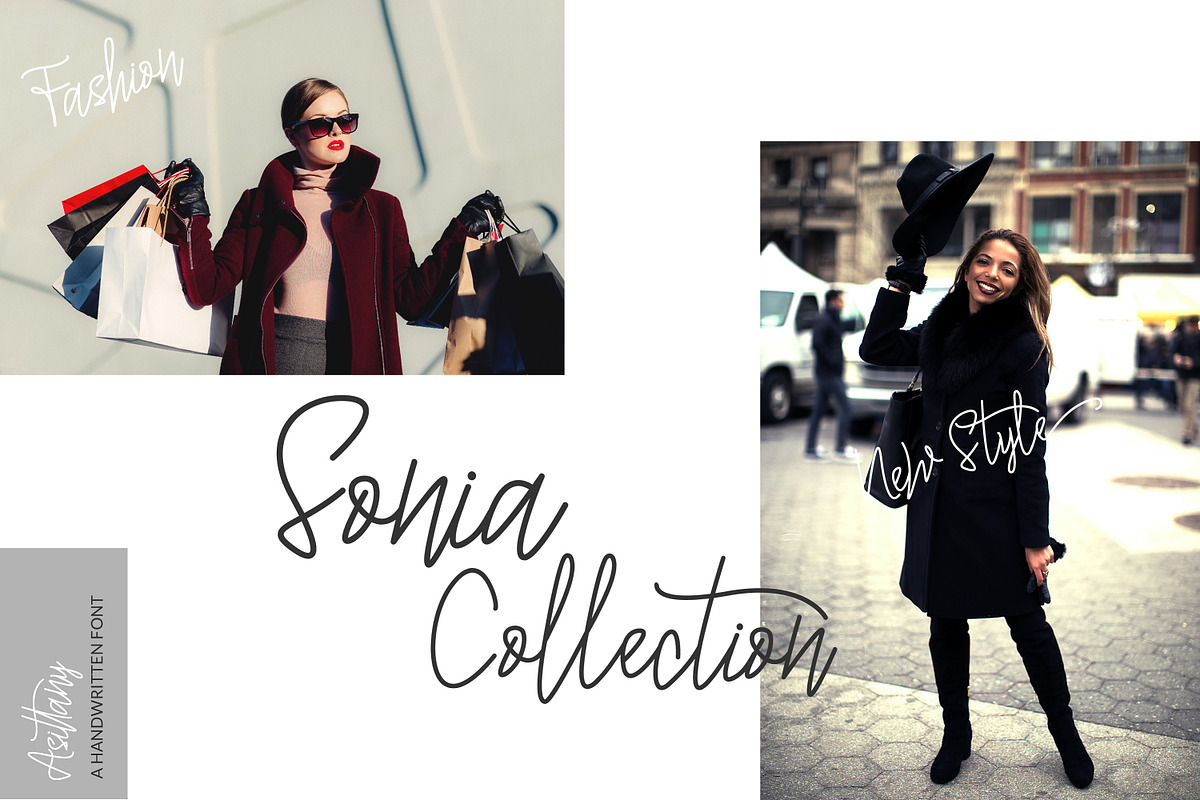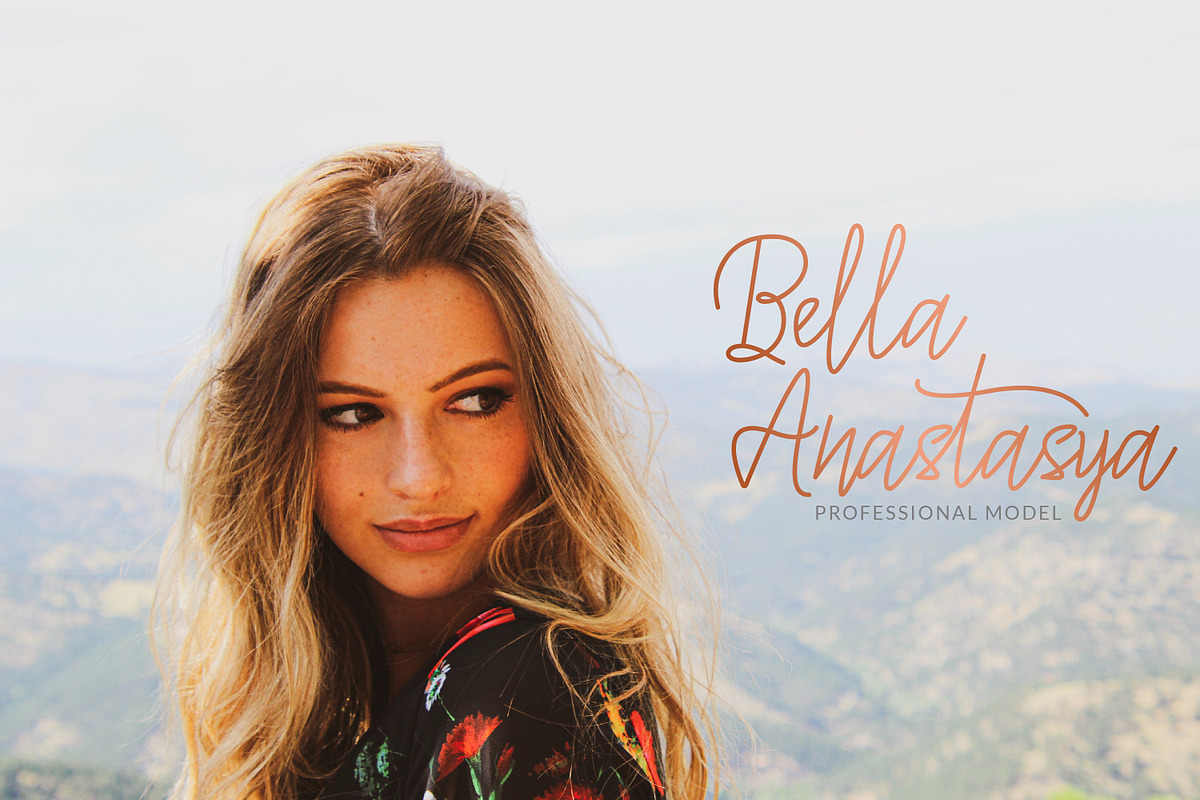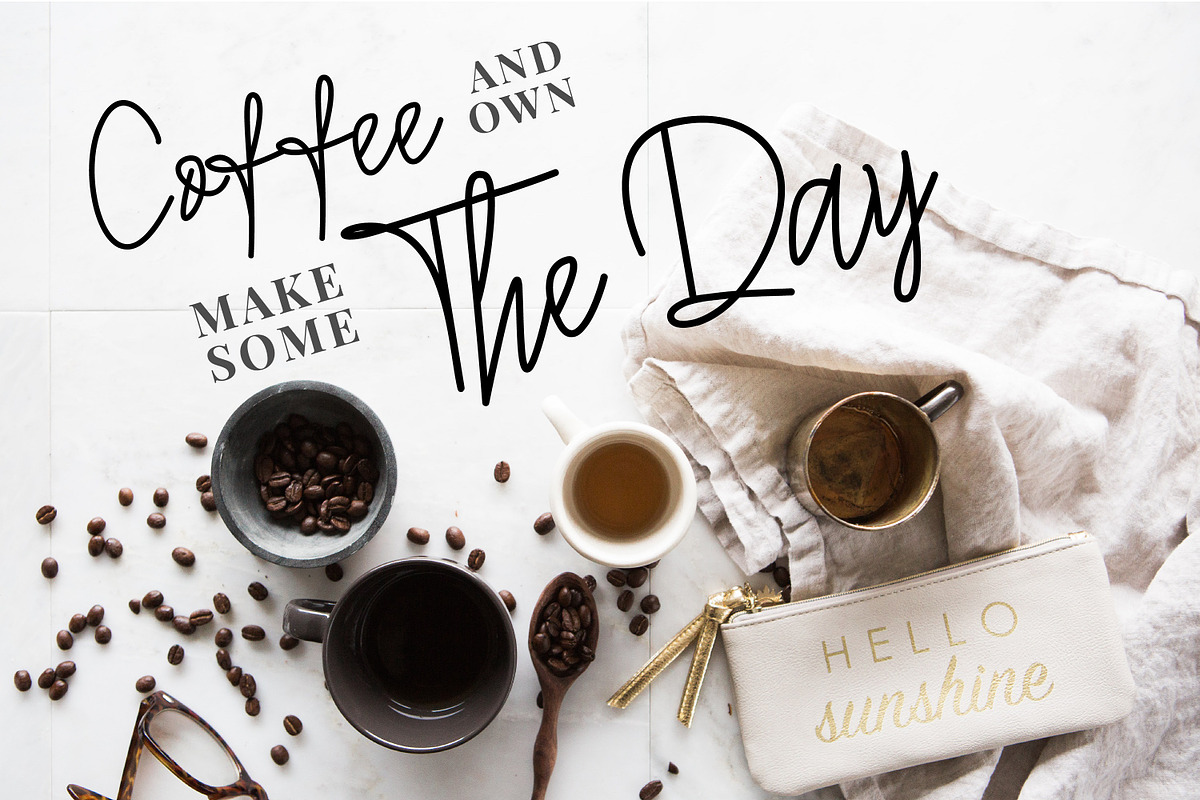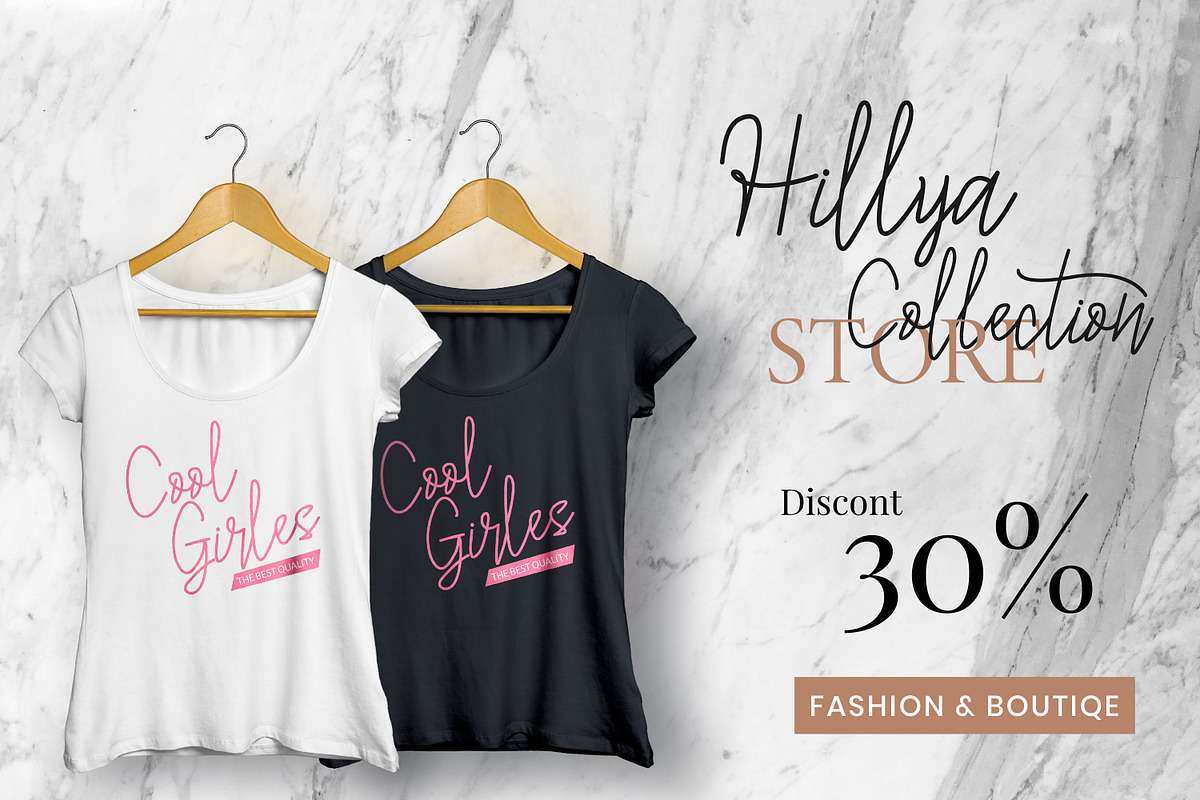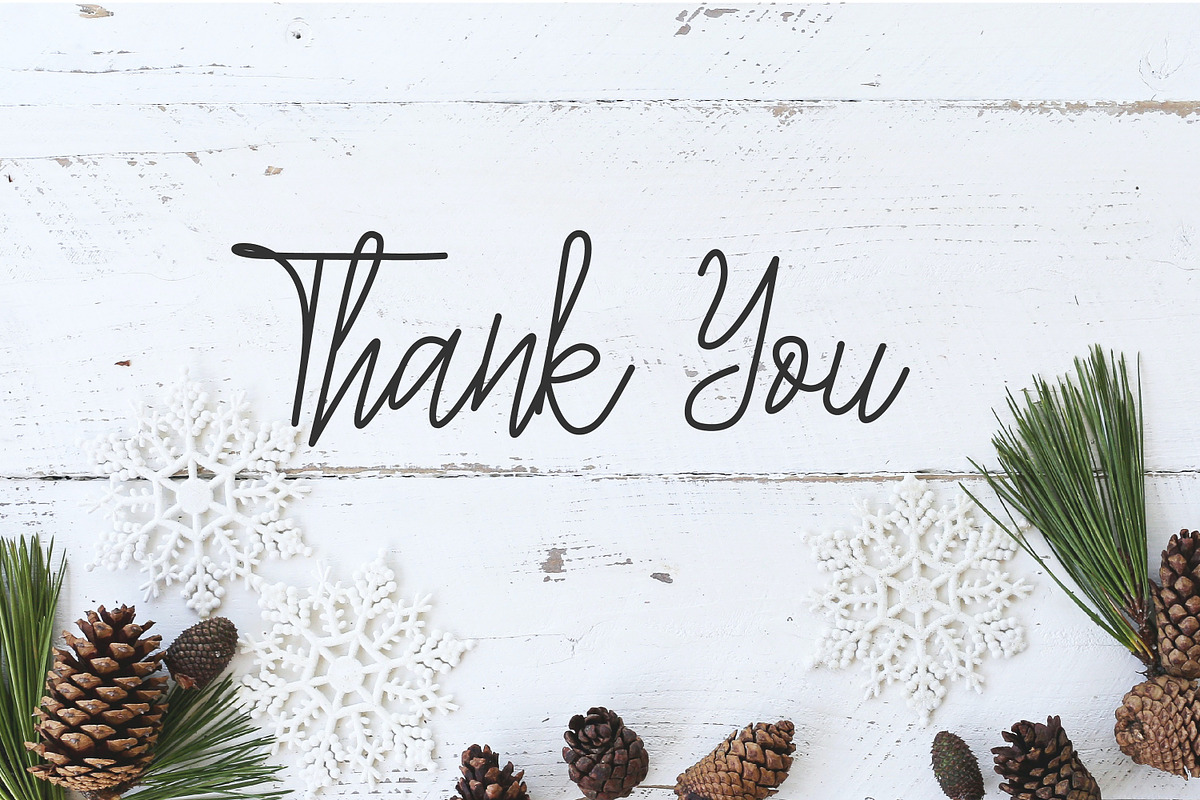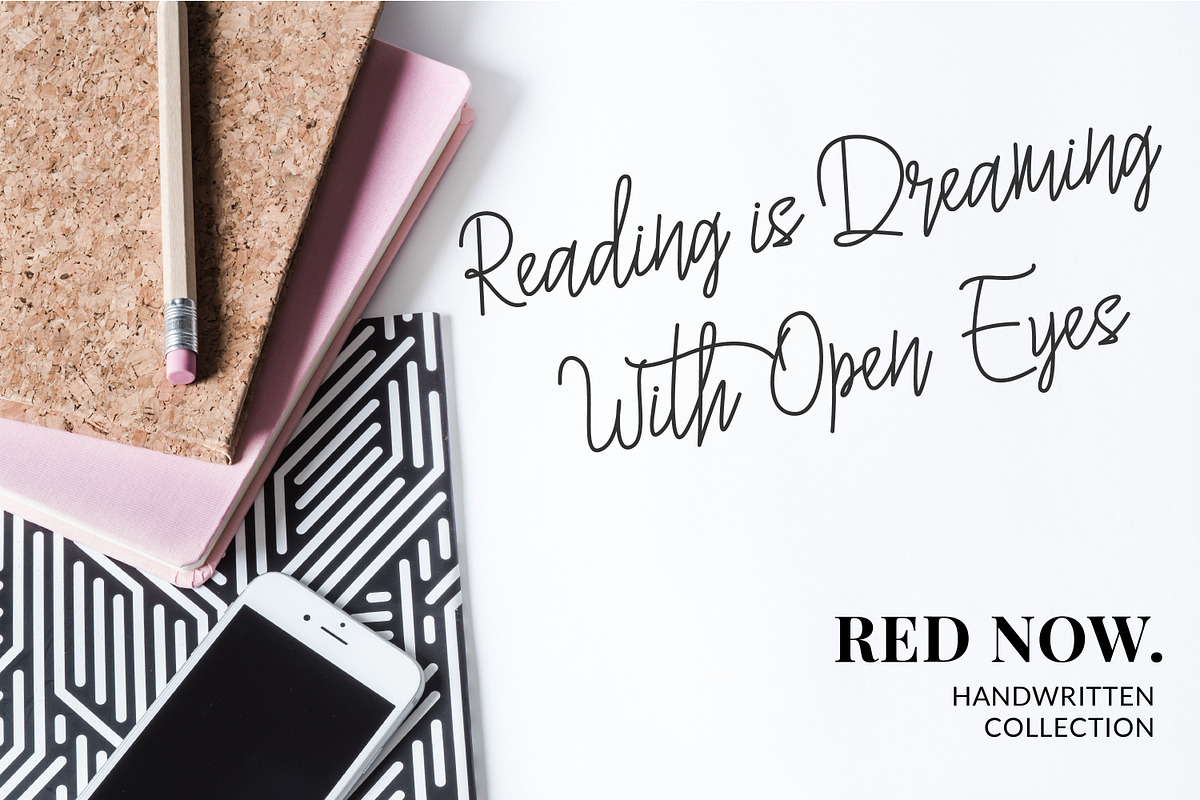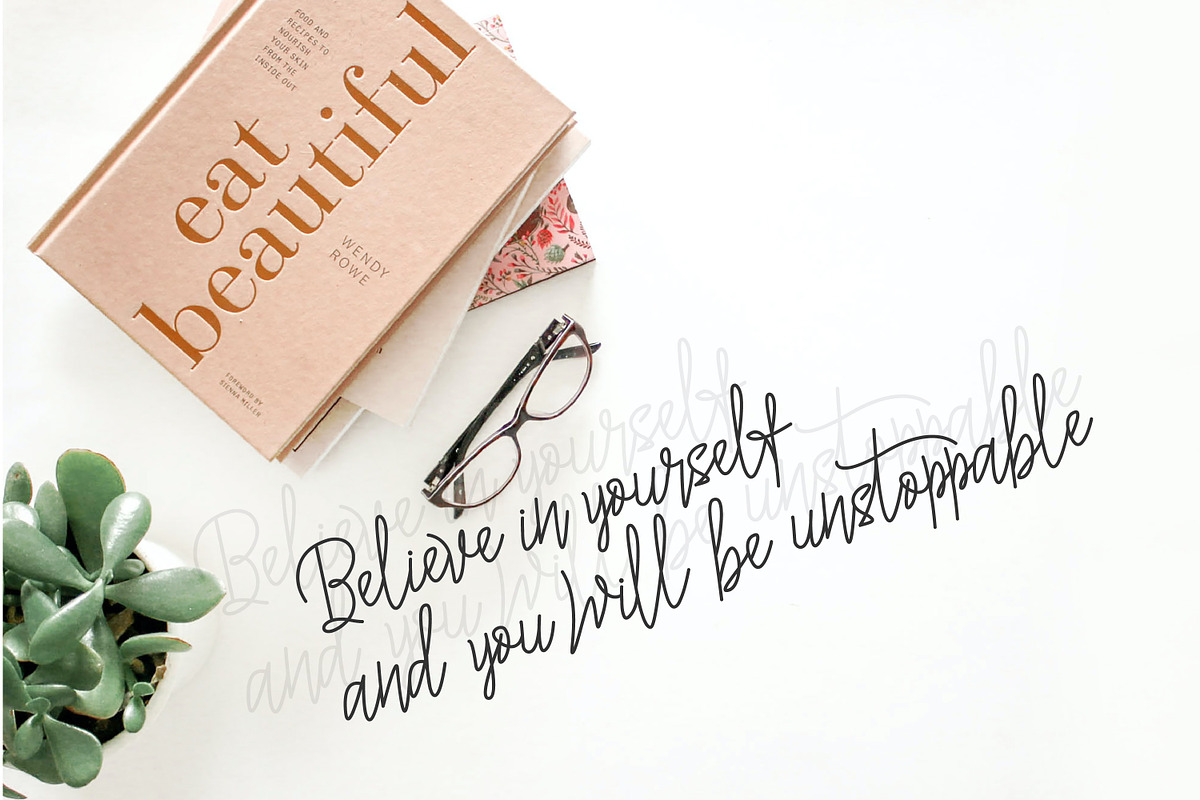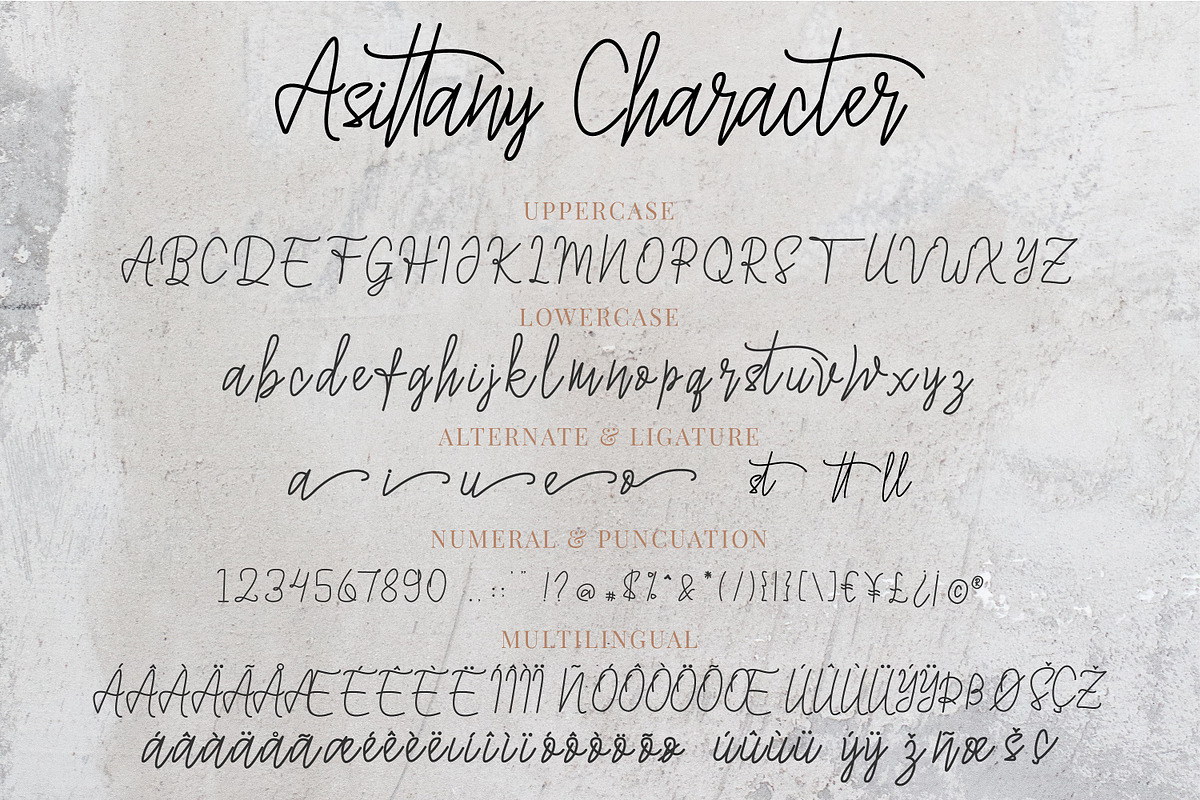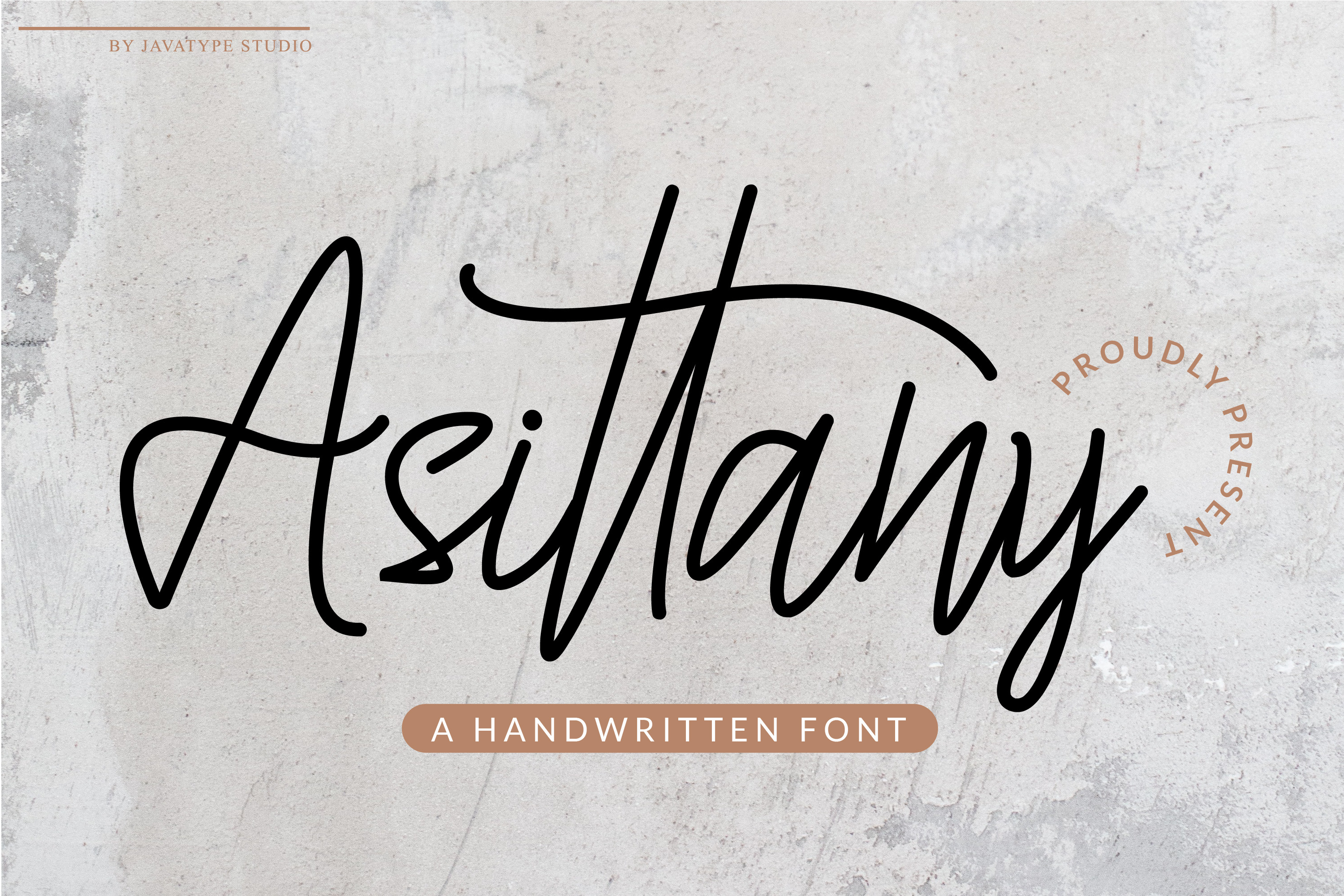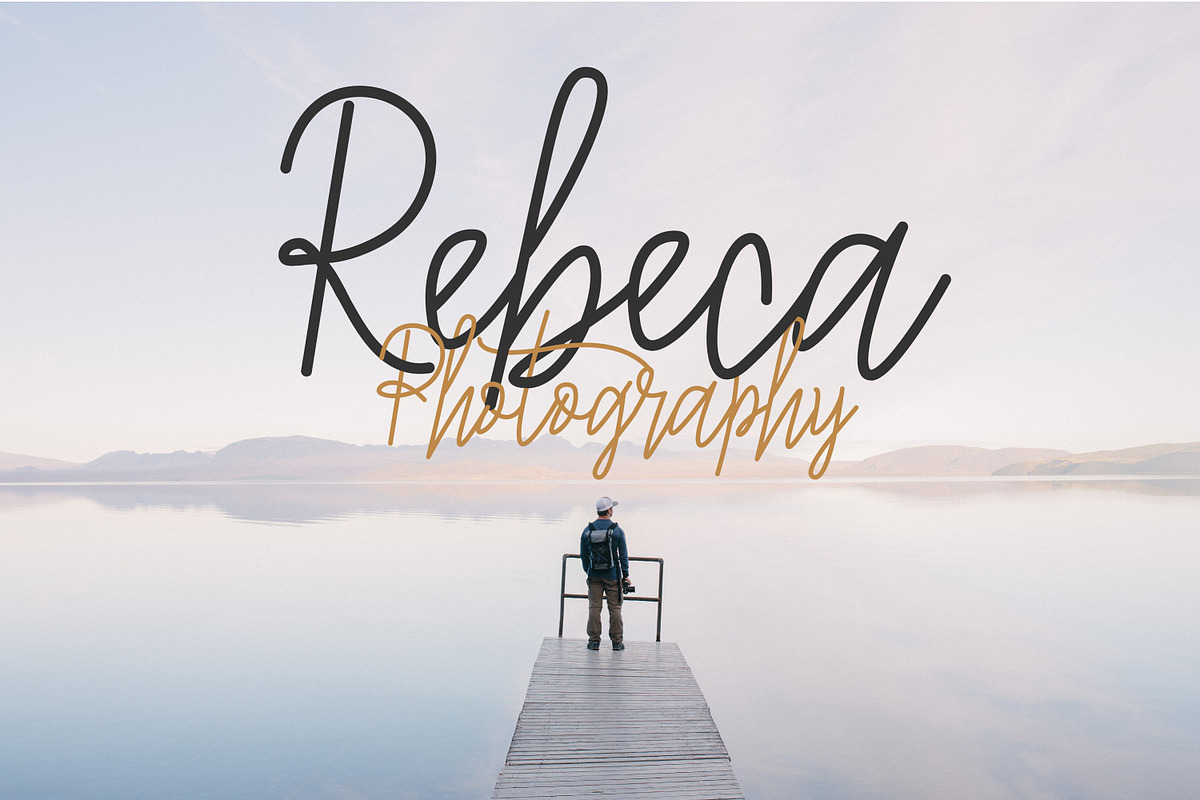
Asittany a monoline script font
Asittany Script is monoline script font which natural movement and elegant for signature style.
Asittany Script is perfect for branding projects, logo, wedding designs, social media posts, advertisements, product packaging, product designs, label, photography, watermark, invitation, stationery and any projects that need handwriting taste.
- Fonts include multilingual support